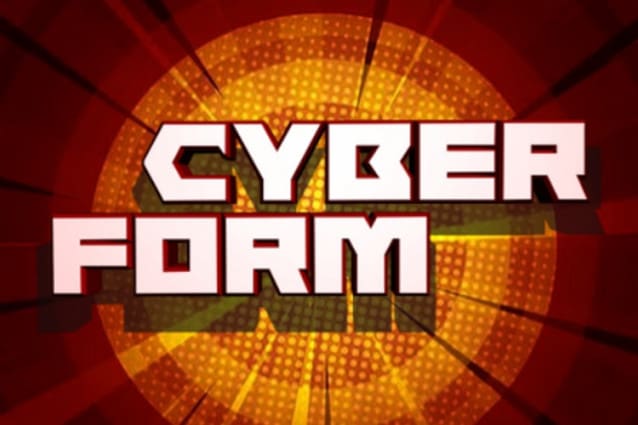
Cyberform Font Family
Cyberform Font Family, This bundle features strong, confident and powerful typefaces designed to work great with sports logos, club branding, apparel applications, labels and more.